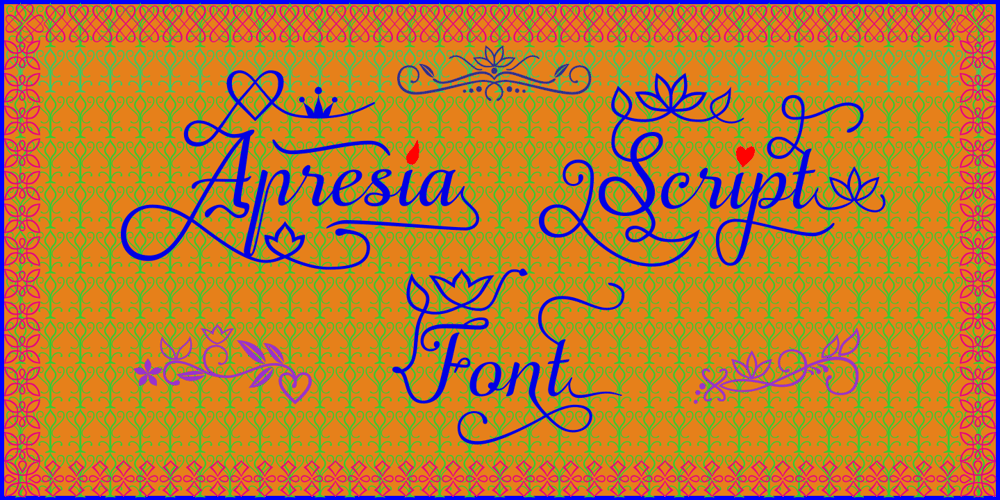
Apresia Script
Apresia Script font
Apresia Script Font Family was designed by Sudarmaji and published by Asritype. Apresia Script contains 1 styles and family package options. Inspired by various shapes such as leaves, flowers, hearts etc., Apresia Script is harmonically crafted. My first intention is only for standard design, but, later added simpler characters for normal(standard) typings. Apresia Script is rich with capital letter variants and ornaments. There are also lowercase variants in lesser numbers. I assume that many or perhaps most people want to have their name or the other of their important designs to be written with some letters that are in various shapes harmoniously. Apresia Script with more then 4000 glyphs support this aim, also support many latin based languages. However, because of many variations, except the standard characters, the full marked capitals are only set in two variants; in ss01 and ss02, which is also some marked lowercases included here. Swash variants (swsh) consist only one variant of every uppercase and lowercase characters, but no marked characters. All the others capital and lowercase variants are put in stlystic alternatives (salt). There are tens of unmarked caps and fewer for unmarked lowercase in salt (see Apresia Script opentype features(1) poster for some). The ornaments can be accessed via opentype ornaments(ornm), using less(<) and greater(>) characters for easier access. There are also beginning small letter(lowercase) ornaments, end word(lowercase) ornaments and insertion ornaments to make your typing/design more flourish, using ornm via “[“ (bracketleft), “]” (bracketright) and “” (backslash), respectively. For marks; marks via combining marks and mkmk was set for many characters variants, however, it seem most applications not yet support this features. Alternatively, you can add non standard unicode combining marks via ornaments for the language supported: asterisk “*” list for uppercase marks above letters; ASCIIcircum “^” list for lowercase marks above letters; underscore “_” for uppercase and lowercase marks below the letters; numbersign “#” for slashing characters, horn, caron alternate and reversed comma for g, (see Apresia Script opentype features(2) poster and save it if you download the font). Thus, it is recommended to have the application which are support these opentype features such as: Adobe in Design, Adobe Illustrator, CorelDRAW or others for easier accessing the glyphs. Still, for non supported applications, you can insert these glyphs via Character maps, insert symbols or other similar tools. Apresia Script will go for most typing/design such as invitation, wedding card, greeting card, banners, logos and many others. Use it for whatever you intended to, Apresia script will give an amazing end design, though you are not a designer. As intended to be able to be used by many, this font is set in an affordable price. Thank you very much for downloading this font.